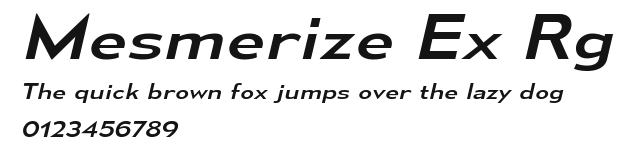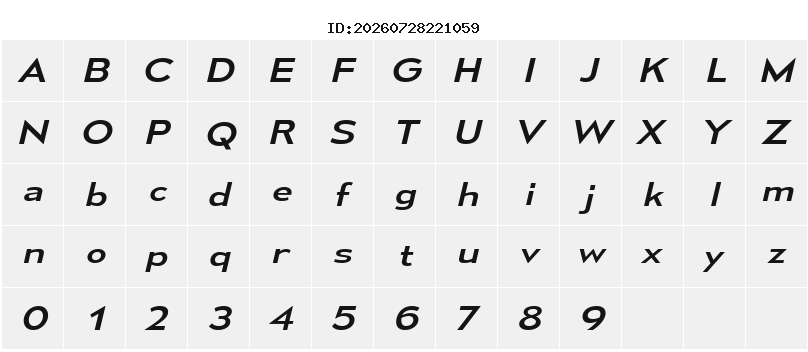
• Font Name: Mesmerize Ex Rg
• Designer: Ray Larabie
• Manufacturer: Ray Larabie
About Mesmerize Ex Rg.ttf
Mesmerize Ex Rg.ttf is a modern, elegant sans-serif font designed for ultimate readability and visual harmony. Perfect for branding, headlines, web design, and print materials.